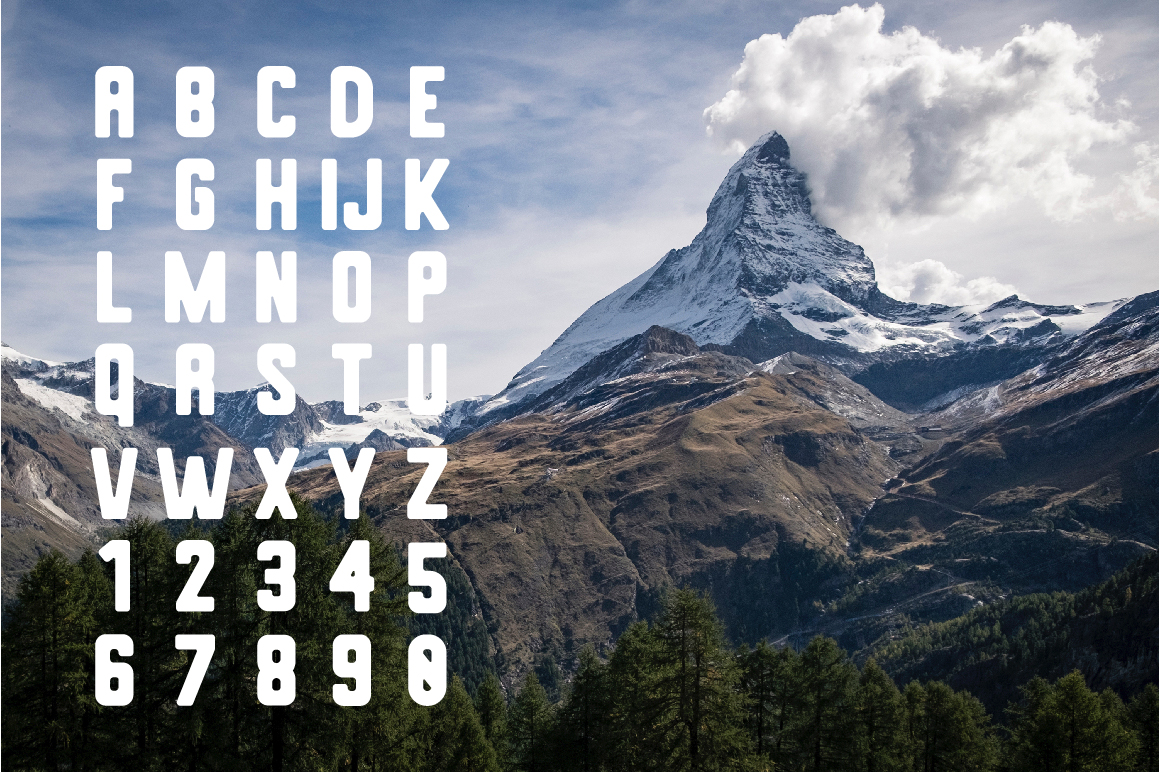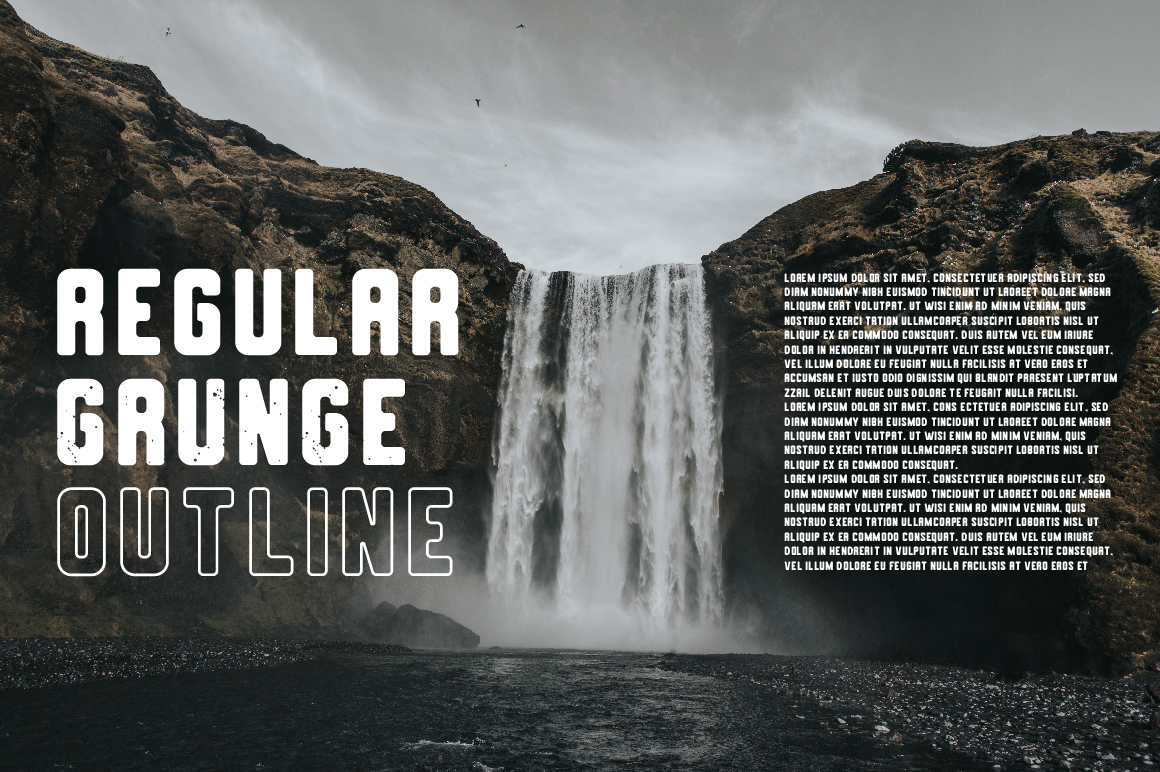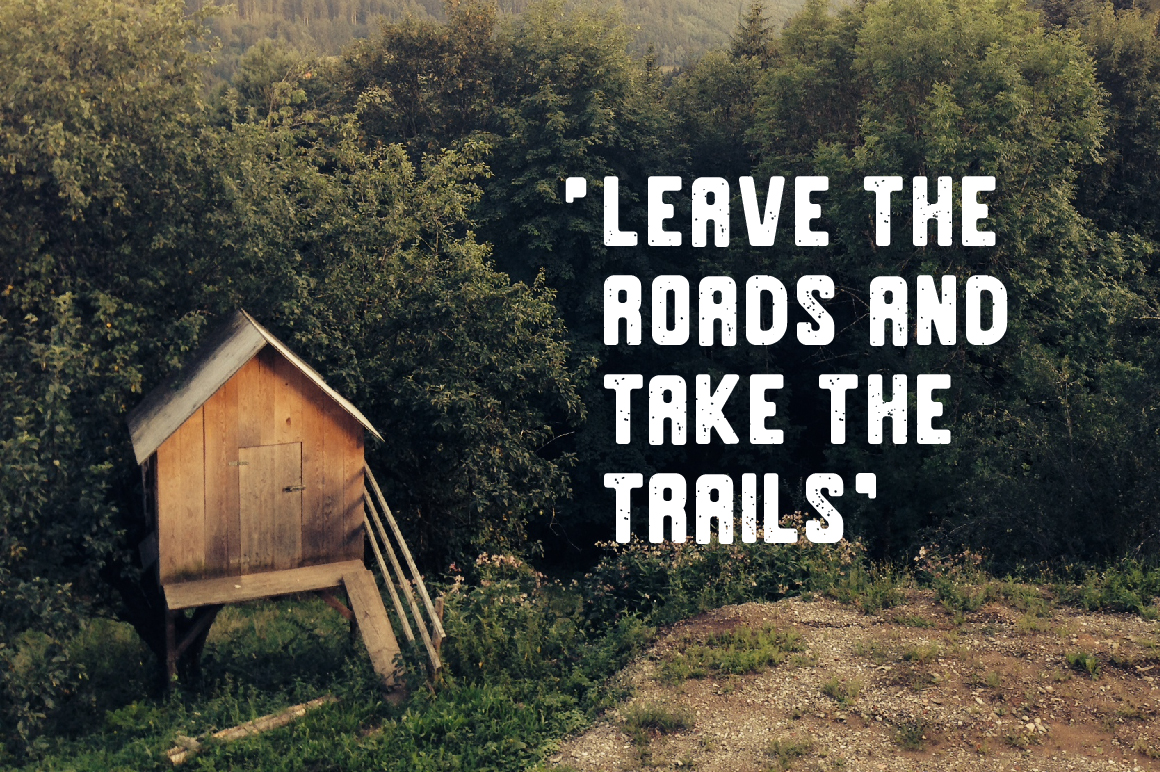
Introducing Halken Font: A Versatile Typeface for Designers and Crafters
Are you a designer or crafter looking for a unique and versatile font to elevate your creative projects? Look no further than Halken Font, a printed typeface that offers a range of styles to suit your needs. In this article, we’ll explore the features and benefits of Halken Font, and why it’s a must-have for anyone looking to add a touch of personality to their designs.
What is Halken Font?
Halken Font is a printed typeface that comes in three distinct styles: regular, outline, and grunge. This variety of styles makes it an incredibly versatile font that can be used in a wide range of creative projects, from crafting and scrapbooking to graphic design and digital art.
Key Features of Halken Font
- Regular Style: The regular style of Halken Font is a classic, printed typeface that’s perfect for everyday use. Its clean lines and simple design make it easy to read and versatile enough to use in a variety of projects.
- Outline Style: For a more subtle look, the outline style of Halken Font is a great option. This style features a delicate outline of the letters, making it perfect for use in designs where you want to add a touch of elegance and sophistication.
- Grunge Style: If you’re looking for a font with a bit more attitude, the grunge style of Halken Font is the way to go. This style features a distressed, rough-around-the-edges look that’s perfect for adding a touch of edginess to your designs.
Benefits of Using Halken Font
So why should you choose Halken Font for your creative projects? Here are just a few benefits of using this versatile typeface:
- Versatility: With three distinct styles to choose from, Halken Font is incredibly versatile and can be used in a wide range of creative projects.
- Ease of Use: Halken Font is easy to read and use, making it perfect for designers and crafters of all skill levels.
- Unique Look: The grunge style of Halken Font adds a unique touch to any design, making it perfect for crafters and designers who want to stand out from the crowd.
Uses for Halken Font
So what can you use Halken Font for? The possibilities are endless! Here are a few ideas to get you started:
- Scrapbooking: Halken Font is perfect for scrapbooking and other paper crafting projects. Its clean lines and simple design make it easy to read, and its versatility means you can use it to add a touch of personality to your layouts.
- Graphic Design: Halken Font is also great for graphic design projects, such as brochures, flyers, and posters. Its professional look and feel make it perfect for use in a variety of designs.
- Digital Art: For digital artists, Halken Font is a great addition to your font library. Its unique grunge style adds a touch of edginess to any design, making it perfect for use in digital art projects.
| Font Name | Halken Font |
| Author | Mike Hill |
In conclusion, Halken Font is a versatile and unique typeface that’s perfect for designers and crafters looking to add a touch of personality to their creative projects. With its three distinct styles and ease of use, Halken Font is a must-have for anyone looking to elevate their designs. Whether you’re working on a scrapbooking project, graphic design project, or digital art project, Halken Font is sure to become a favorite in your font library.